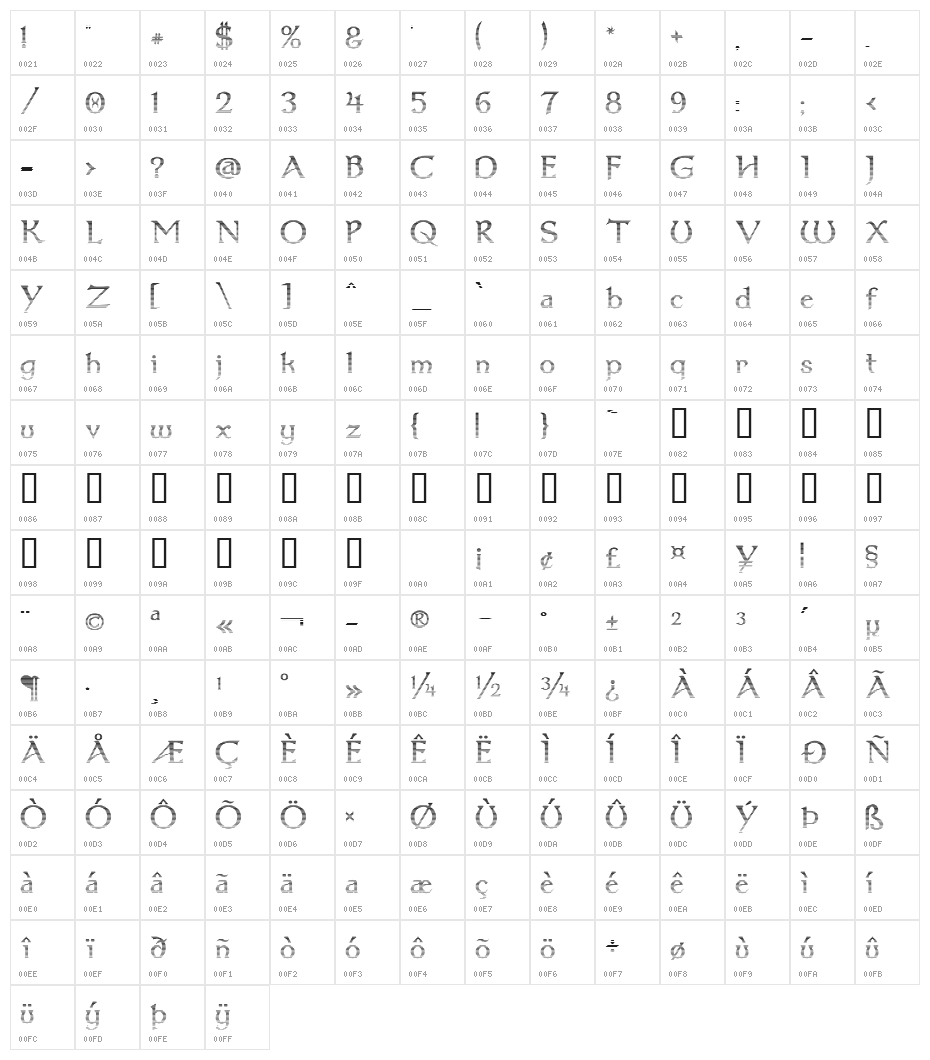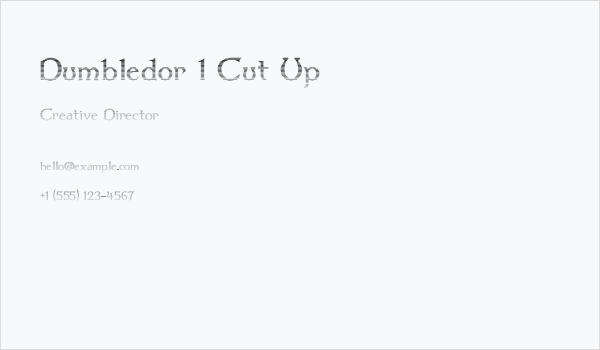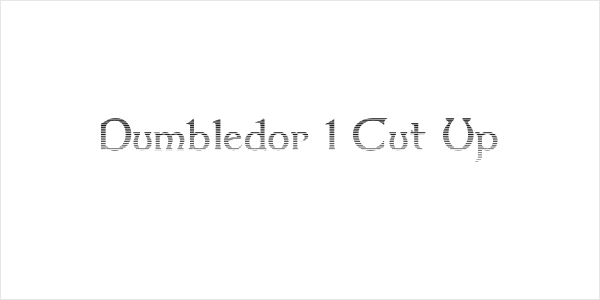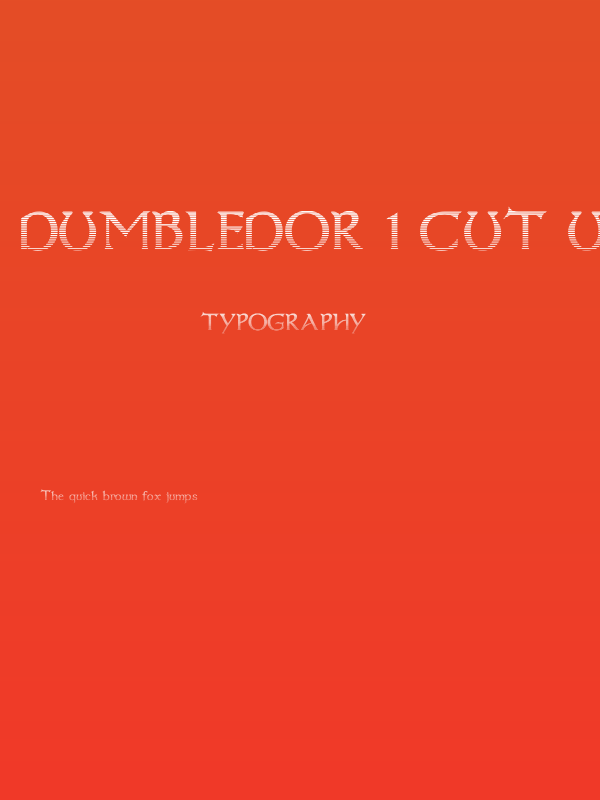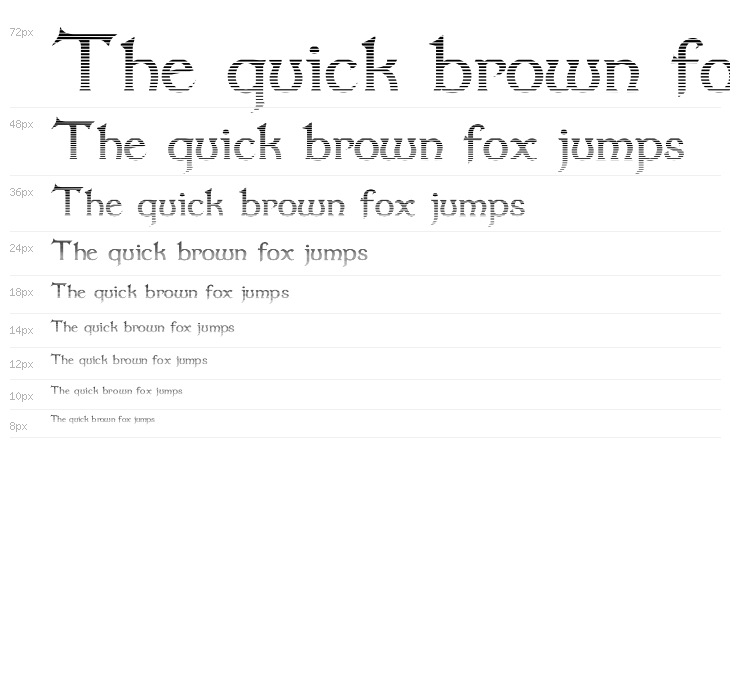
Dumbledor 1 Cut Up Font
Dumbledor 1 Cut Up Description
This font features a unique, cut-up style with horizontal lines running through each character, creating a striking visual effect. The uppercase letters are bold and angular, with sharp serifs that add a touch of elegance. The lowercase letters maintain a consistent style, offering a cohesive look across different text sizes. Numbers and special characters are designed with the same attention to detail, ensuring uniformity. The font's distinct appearance makes it suitable for eye-catching designs, where the text needs to stand out. Its decorative nature is ideal for creative projects that require a modern yet edgy aesthetic.
| Proposed Projects | Ideal for posters, album covers, branding, and any design requiring a modern, edgy look. |